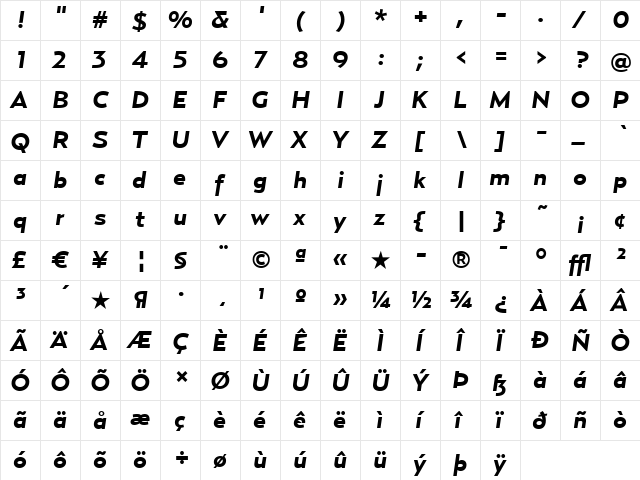
RelayWide-BoldItalic Regular
| Designer | Cyrus Highsmith |
Design Context for RelayWide-BoldItalic Typeface
RelayWide-BoldItalic is a composed and adaptable typeface that performs quietly and consistently across a wide range of design contexts. The slanted form adds forward momentum and visual energy. The heavy weight commands attention and anchors typographic hierarchies.